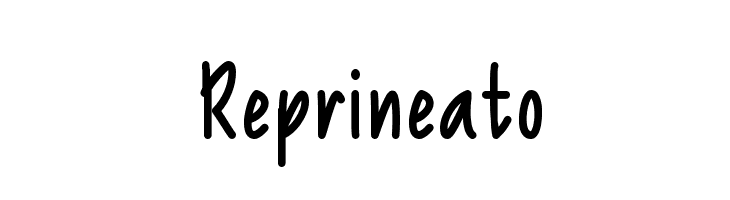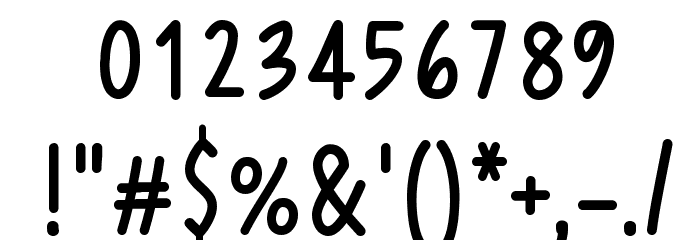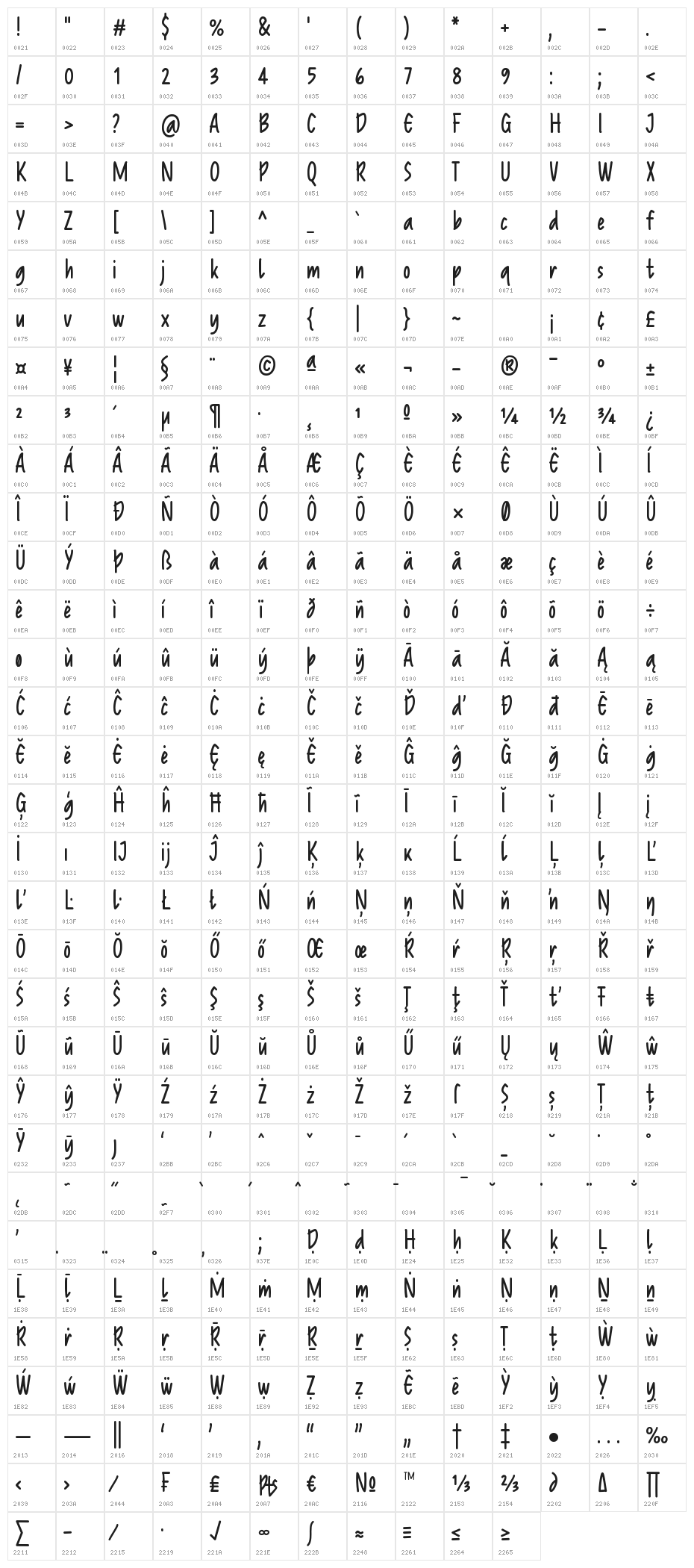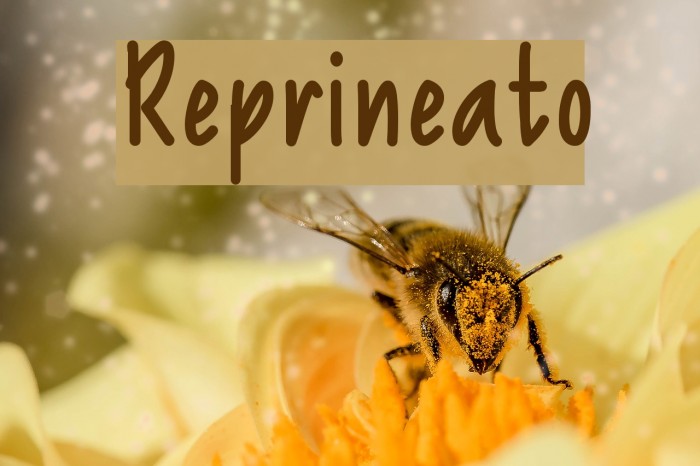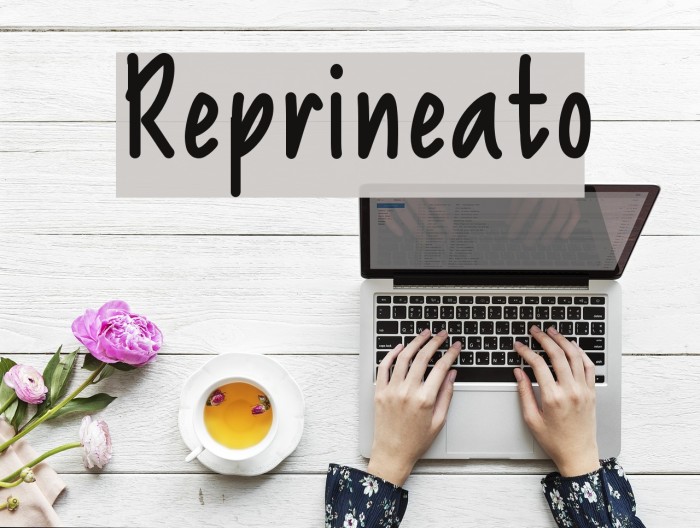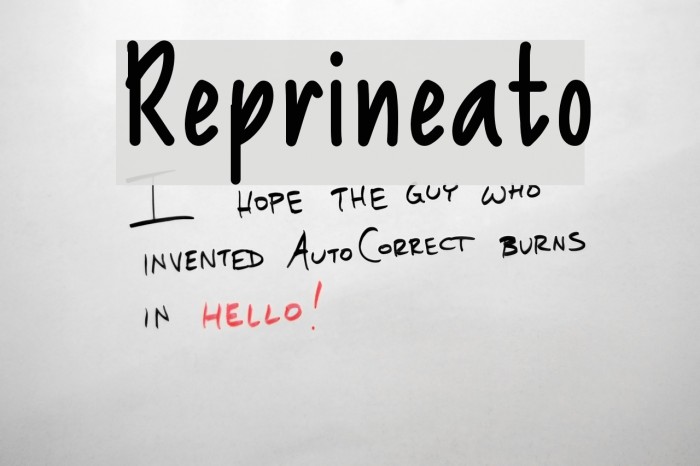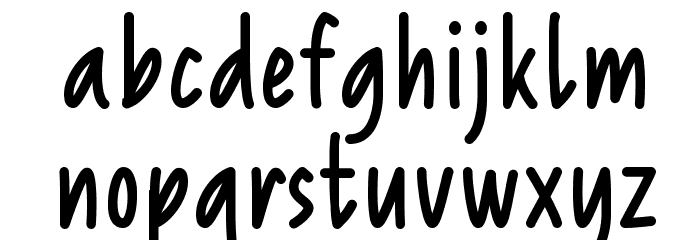
Reprineato Font
Reprineato Description
This font features a playful and casual handwritten style, characterized by its rounded and slightly irregular letterforms. The uppercase and lowercase letters maintain a consistent flow, giving a sense of movement and energy. The numbers and special characters are designed to match the overall style, ensuring a cohesive look across all text elements. The font's informal nature makes it ideal for projects that require a friendly and approachable appearance.
| Overall Style | Casual and playful |
| Use Case | Headlines, Logos, Informal text |
| Proposed Projects | Perfect for greeting cards, children's books, playful branding, and social media graphics. |